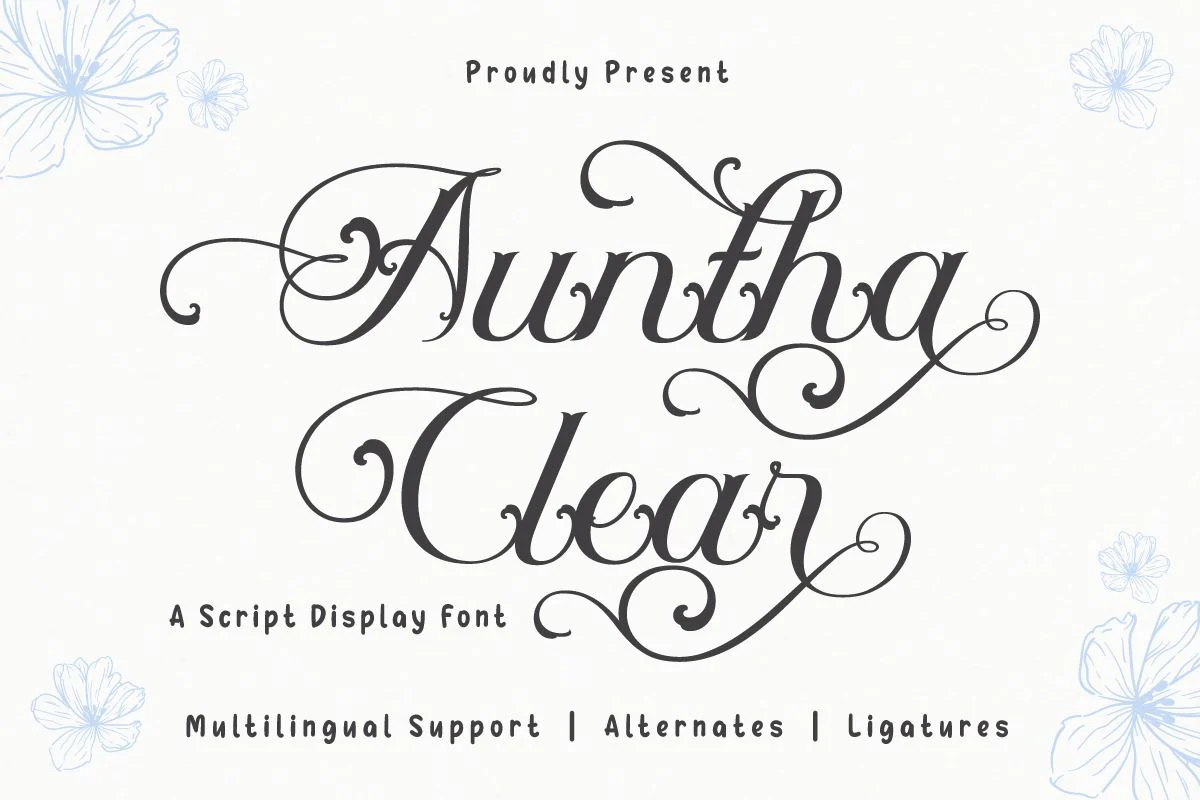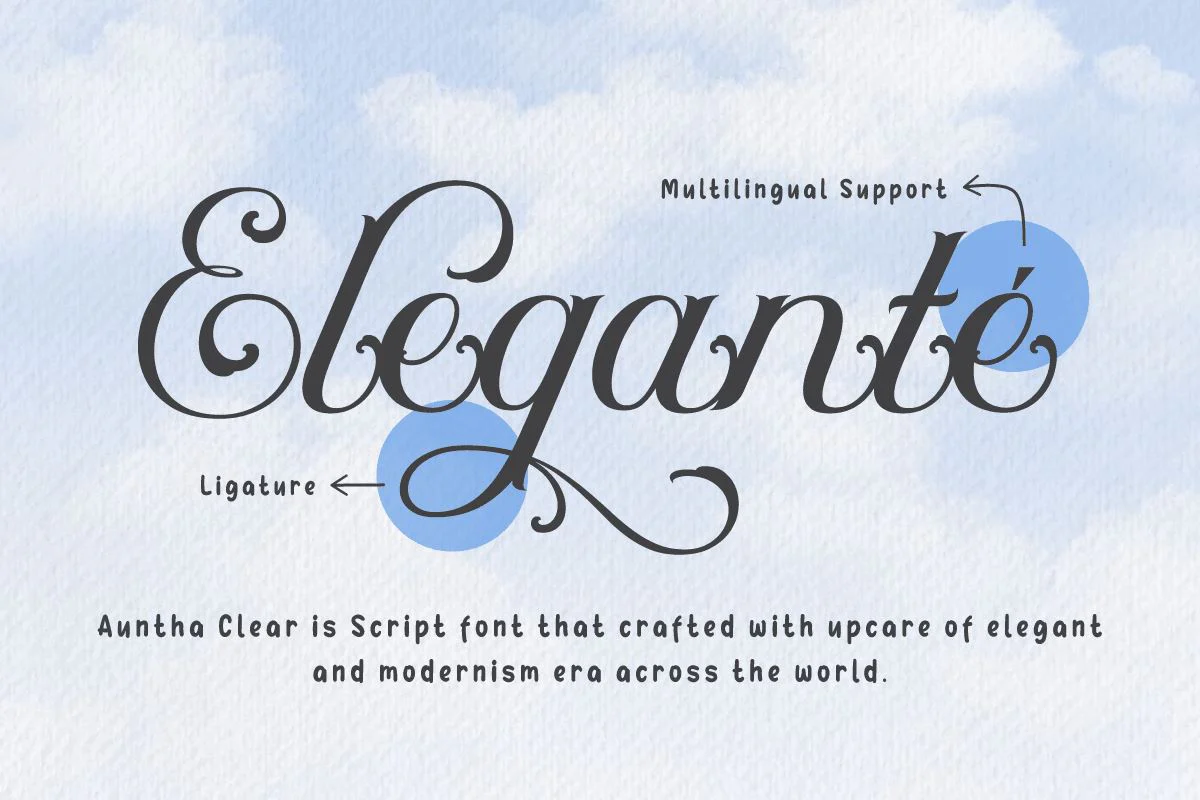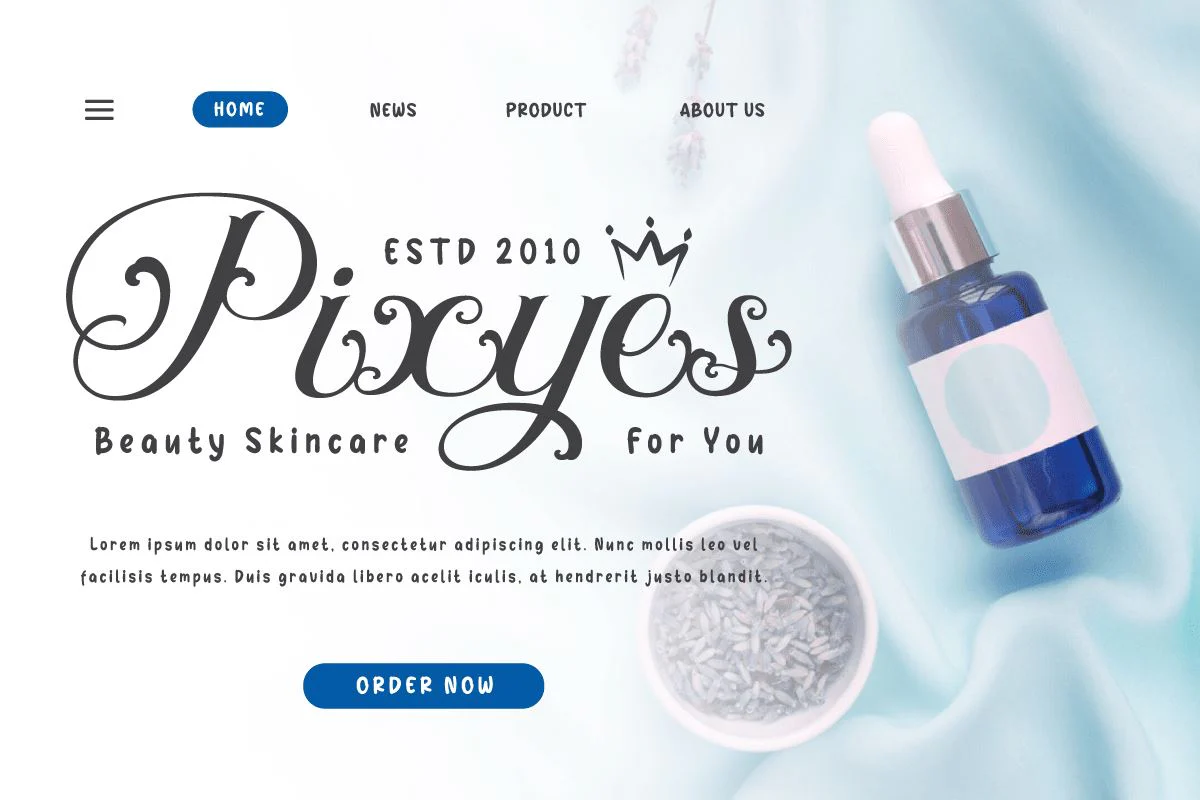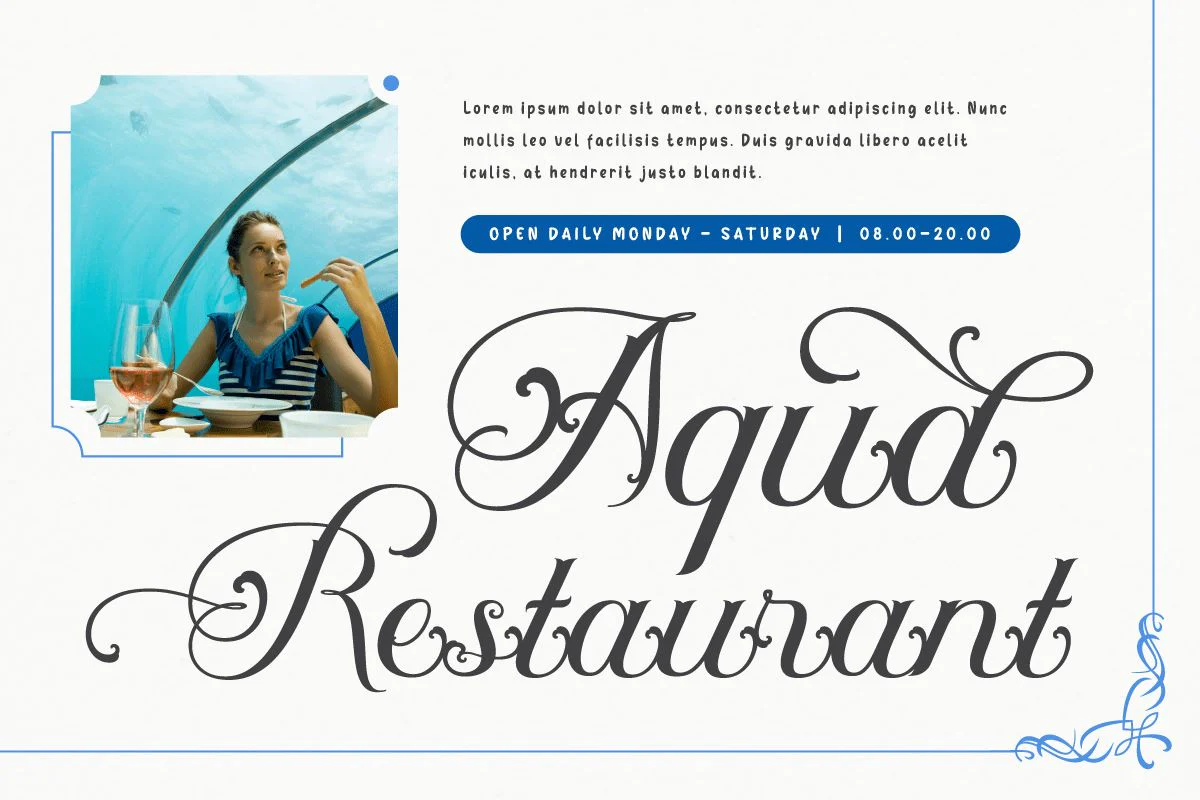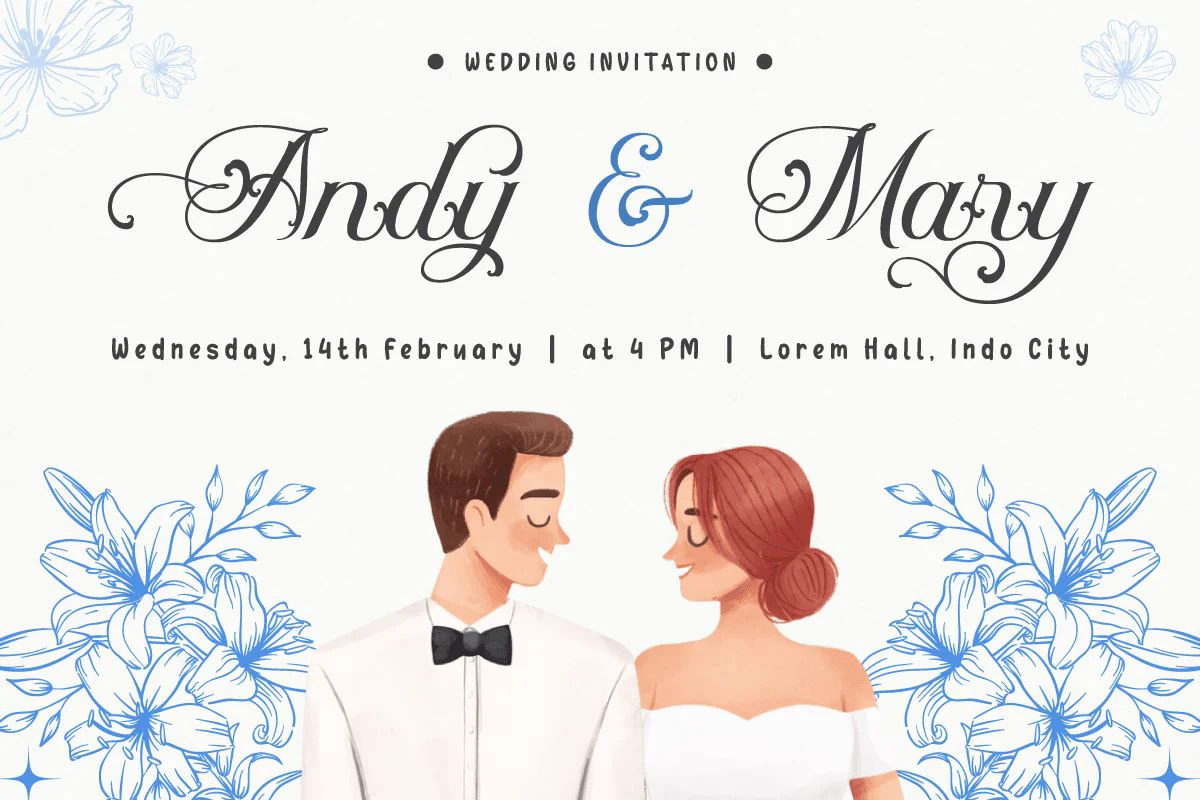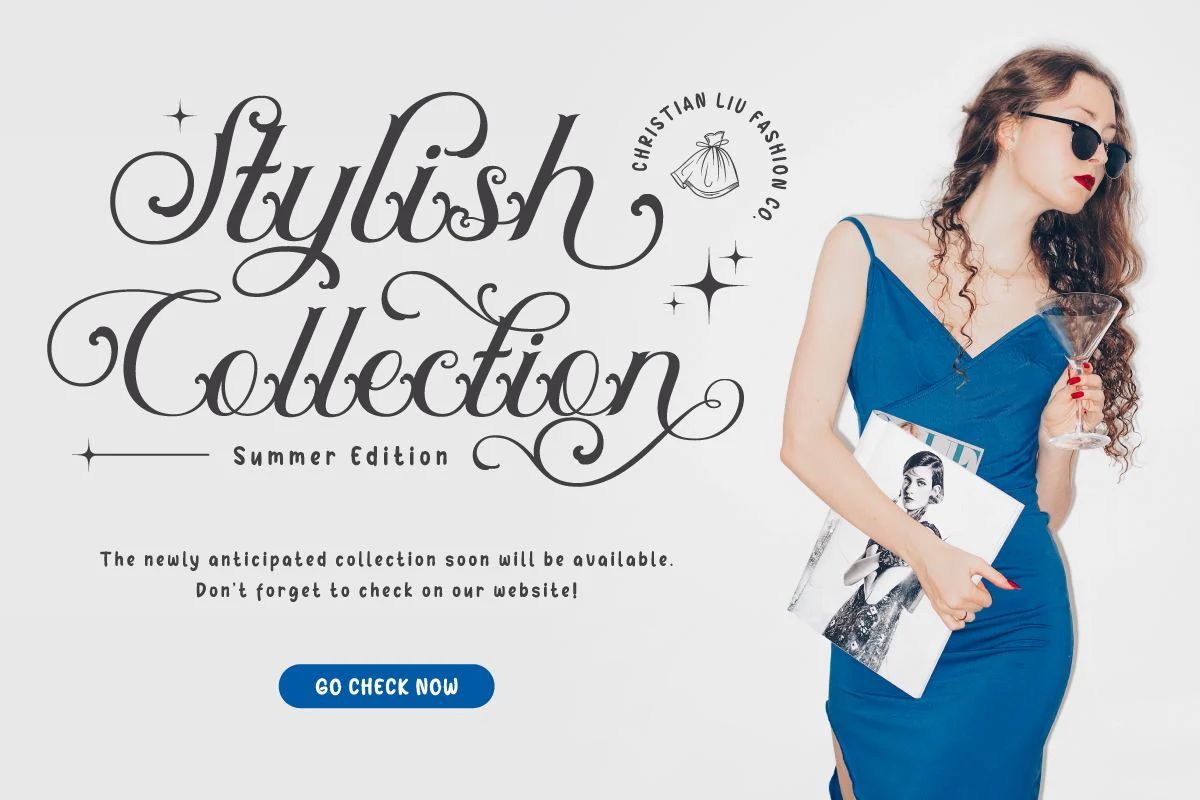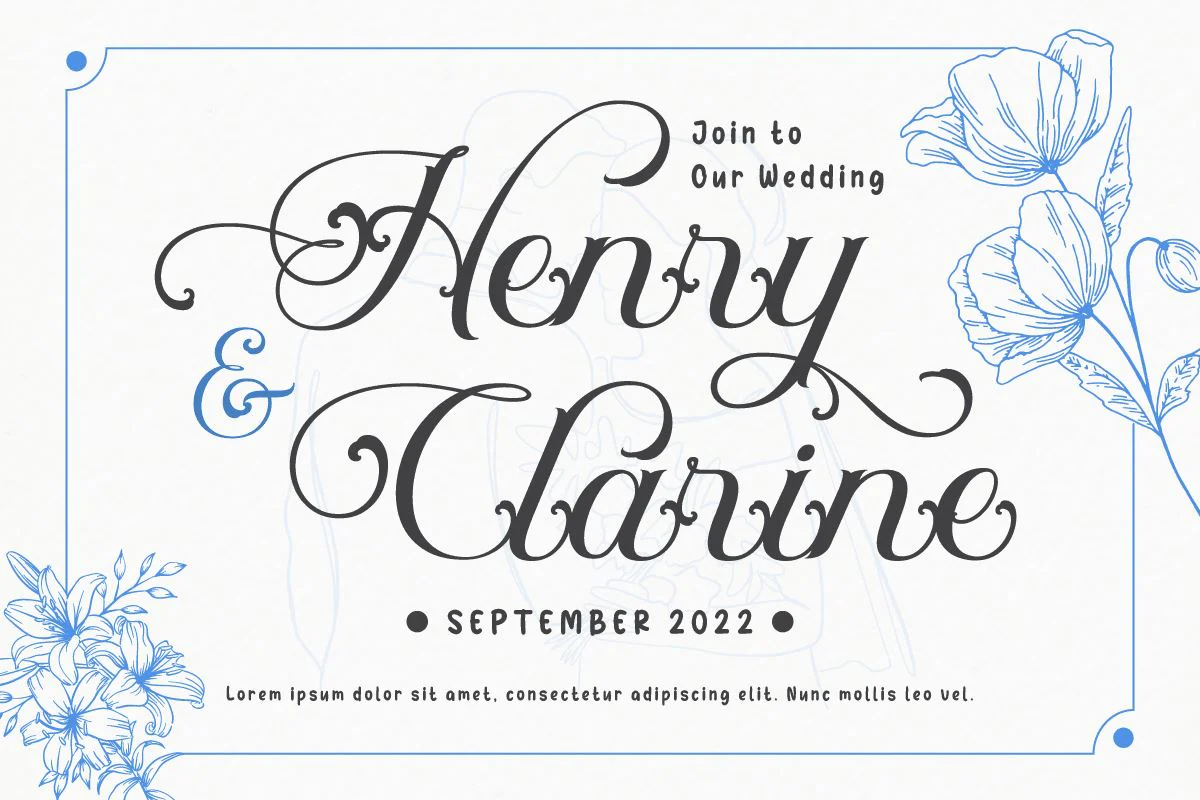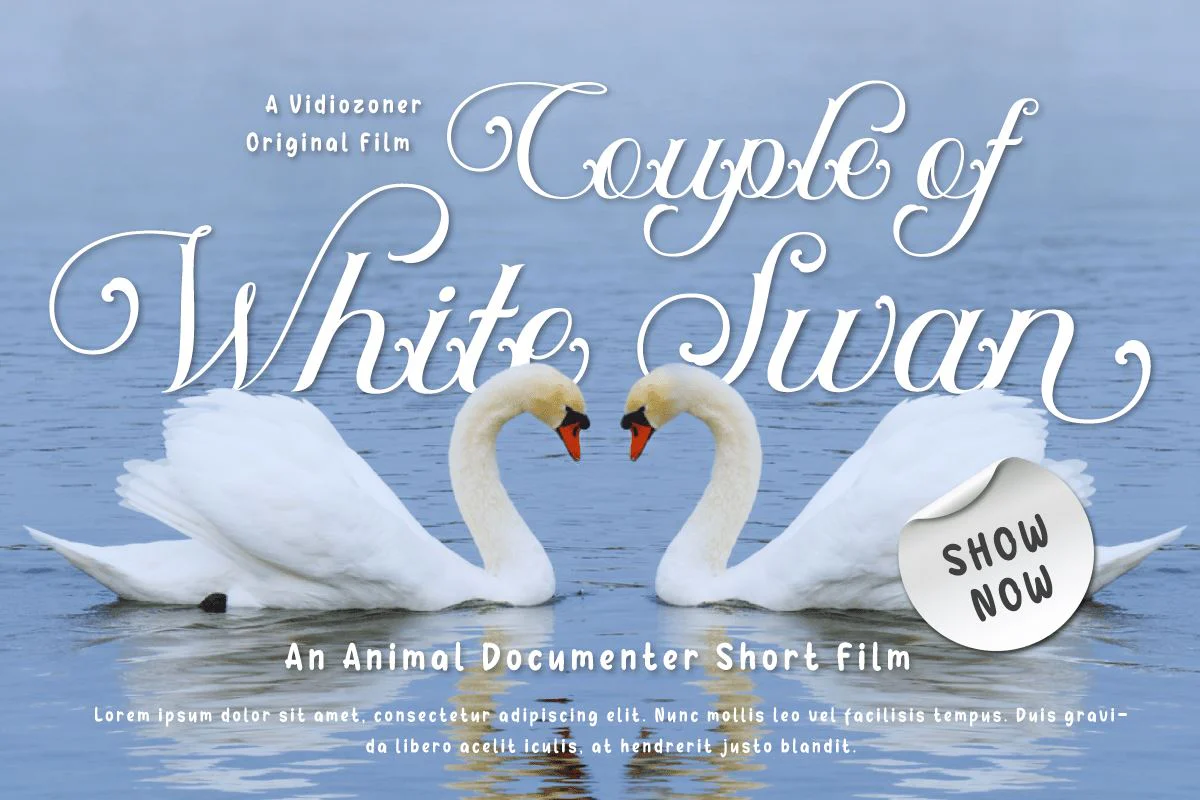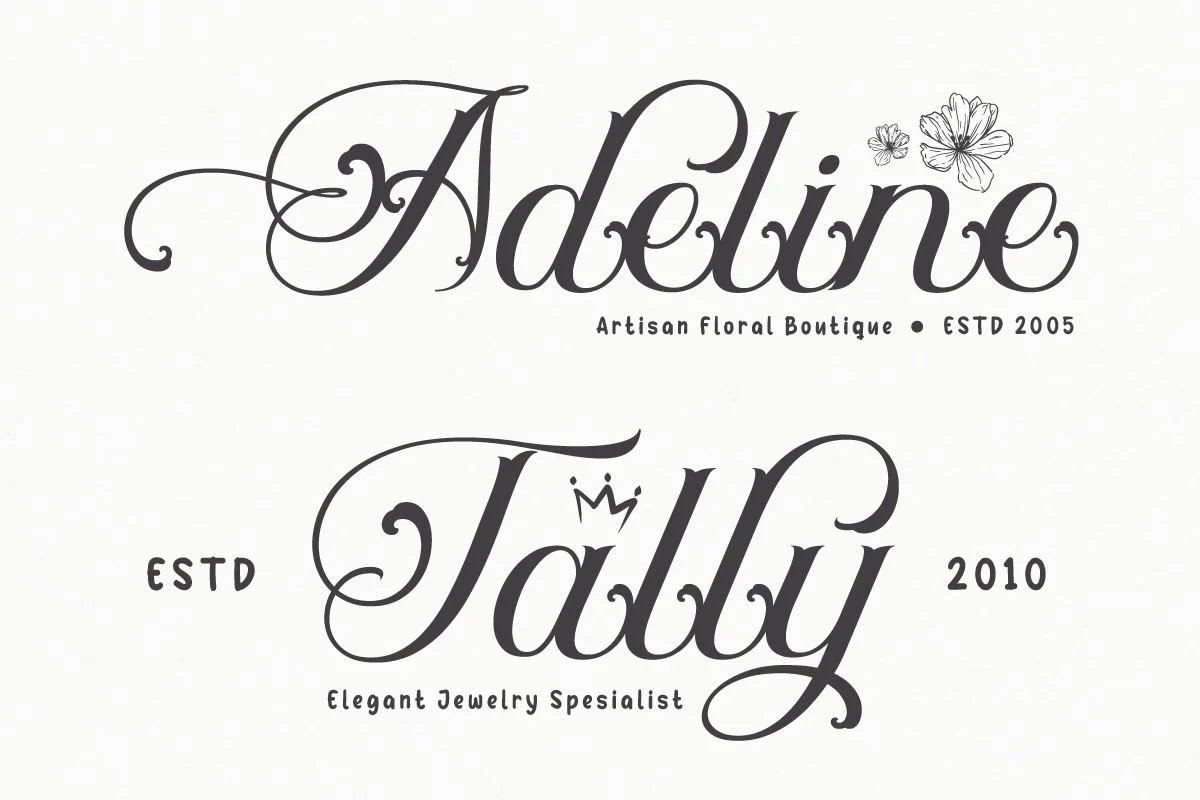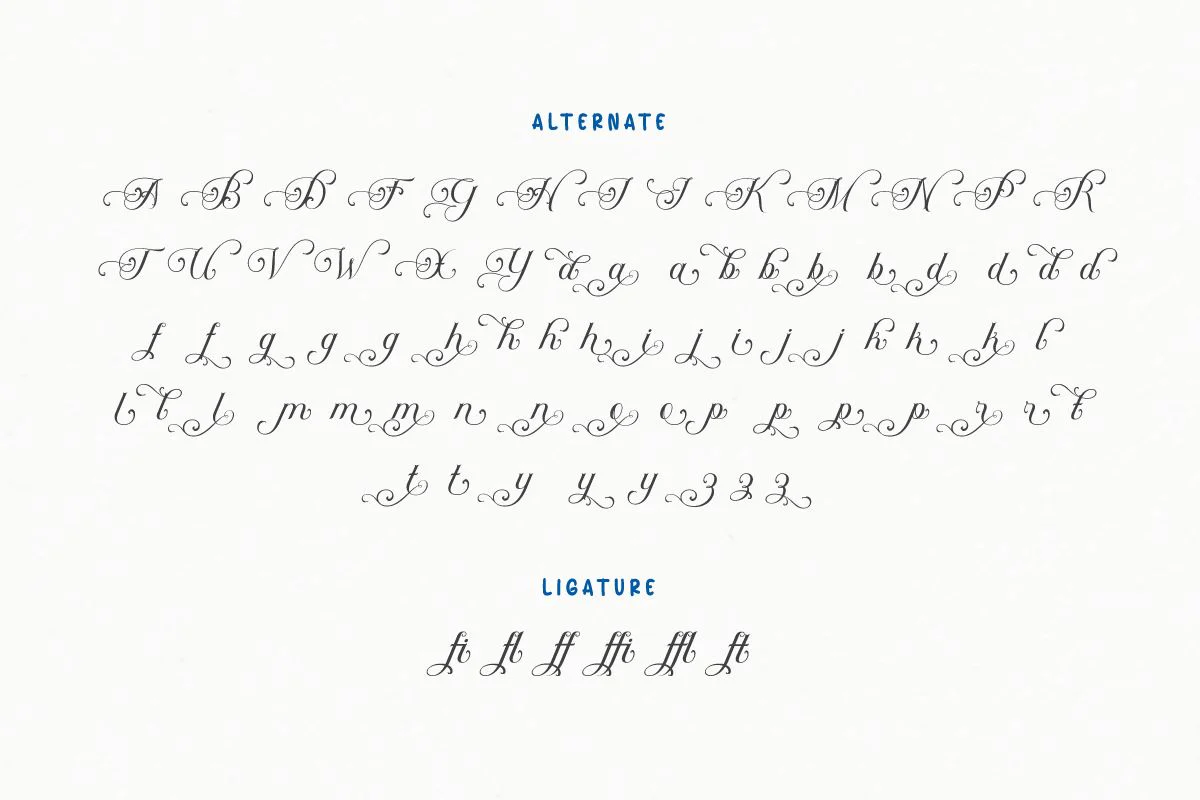
Auntha Clear | Script Font
Auntha Clear is an artistic touch that translates into stunning Script typography. This font is your constant companion for projects that need a pretty, modern, and playful touch.
Its classy style and soft knot make Auntha Clear perfect for a variety of needs, from logo designs to greeting cards. With its flexibility, this font is able to adapt to every theme and message you want to convey.
However, Auntha Clear is more than just a visual beauty. Features like ligature and alternate give your creativity a new dimension. You can freely explore the variety of characters that make your design even more unique.
Not only that, Auntha Clear also supports multiple languages and cultures, making it a bridge that connects your beautiful messages to the world.
Make Auntha Clear your first choice to bring beauty and versatility to every piece. With an eye-catching Script style and advanced features to support your creativity, Auntha Clear is the key to creating stunning and captivating designs. Get Auntha Clear now and create stunning visual masterpieces!
Auntha Clear is an artistic touch that translates into stunning Script typography. This font is your constant companion for projects that need a pretty, modern, and playful touch.
Its classy style and soft knot make Auntha Clear perfect for a variety of needs, from logo designs to greeting cards. With its flexibility, this font is able to adapt to every theme and message you want to convey.
However, Auntha Clear is more than just a visual beauty. Features like ligature and alternate give your creativity a new dimension. You can freely explore the variety of characters that make your design even more unique.
Not only that, Auntha Clear also supports multiple languages and cultures, making it a bridge that connects your beautiful messages to the world.
Make Auntha Clear your first choice to bring beauty and versatility to every piece. With an eye-catching Script style and advanced features to support your creativity, Auntha Clear is the key to creating stunning and captivating designs. Get Auntha Clear now and create stunning visual masterpieces!